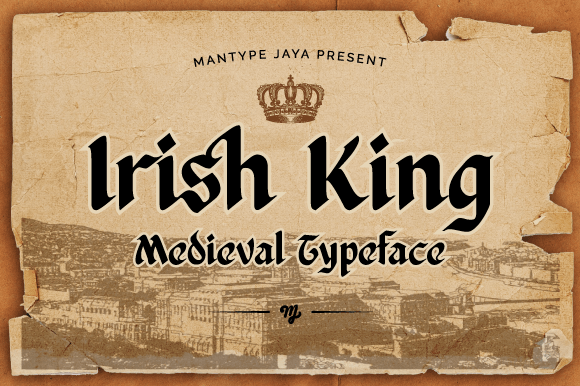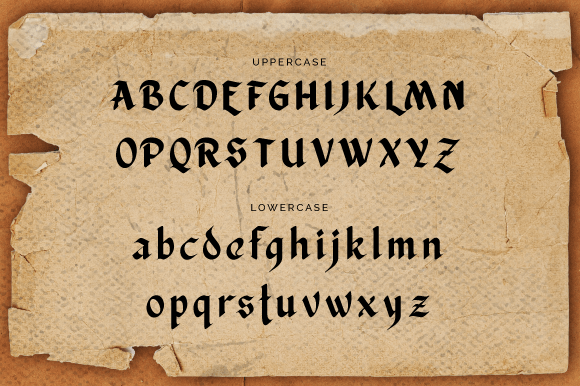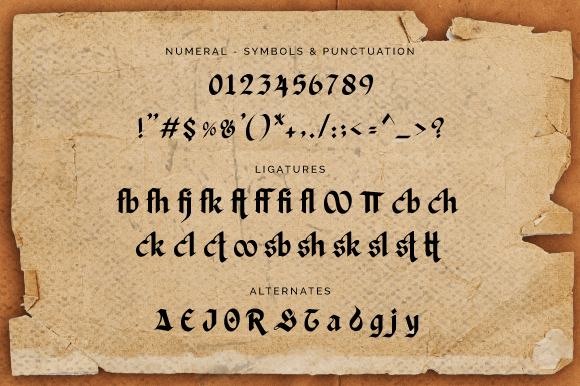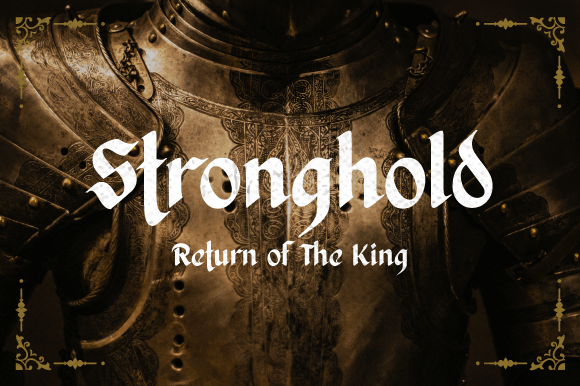
Irish King Font: Medieval Blackletter Typography for Logos & DIY Crafts
About the Irish King Font
Welcome to the world of Irish King Font, a typeface that will inspire your next great project. Irish King is a blackletter display typeface that brings the spirit of the Middle Ages into the modern world. Its design is based on a classic blackletter shape with a Celtic feel that will immerse your projects into a magical world. This font is PUA encoded, which means you can access all the glyphs and ligatures with ease!
Irish King excels as a headline font for projects requiring a strong, historical presence. It’s ideal for branding materials emphasizing heritage, craft, or tradition—think breweries, distilleries, or historical societies. Its bold strokes also work well in short, impactful posters or packaging designs where a touch of medieval flair is desired. However, avoid using it for body text or lengthy paragraphs; its intricate details hinder readability at smaller sizes.
Because of its strong verticality and bold forms, pairing Irish King with a clean, modern sans-serif like Montserrat or a more geometric sans-serif like Futura creates a visually appealing contrast. For a slightly softer feel, consider pairing it with a traditional serif like Garamond, allowing the serif’s elegance to temper the Irish King’s boldness. Avoid pairing it with other highly decorative fonts, as this could lead to visual clutter.
The overall personality of Irish King is bold and dramatic, conveying a sense of history and authority. Its strong verticality and sharp details create a powerful, almost regal impression.